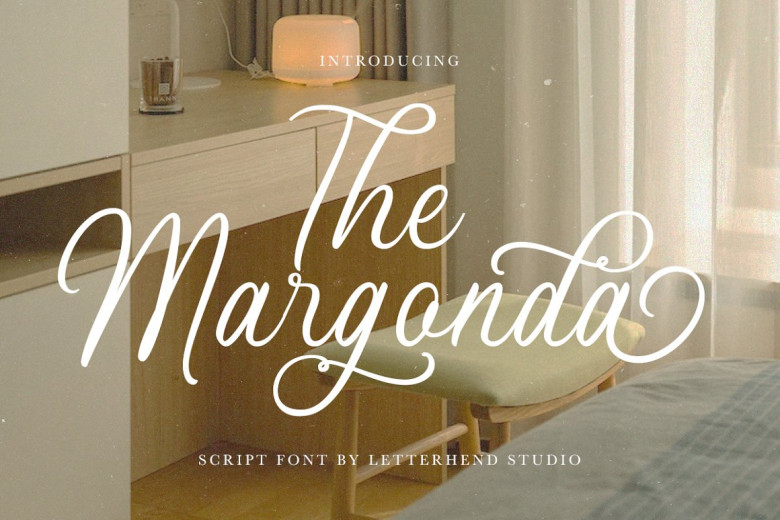
Margonda Font
The Margonda font is a beautiful script calligraphy font that captures the essence of femininity and grace. This font, with its delicate lines and intricate details, is a perfect choice for designs that need a romantic and dreamy feeling.
Margonda Calligraphy Script Font